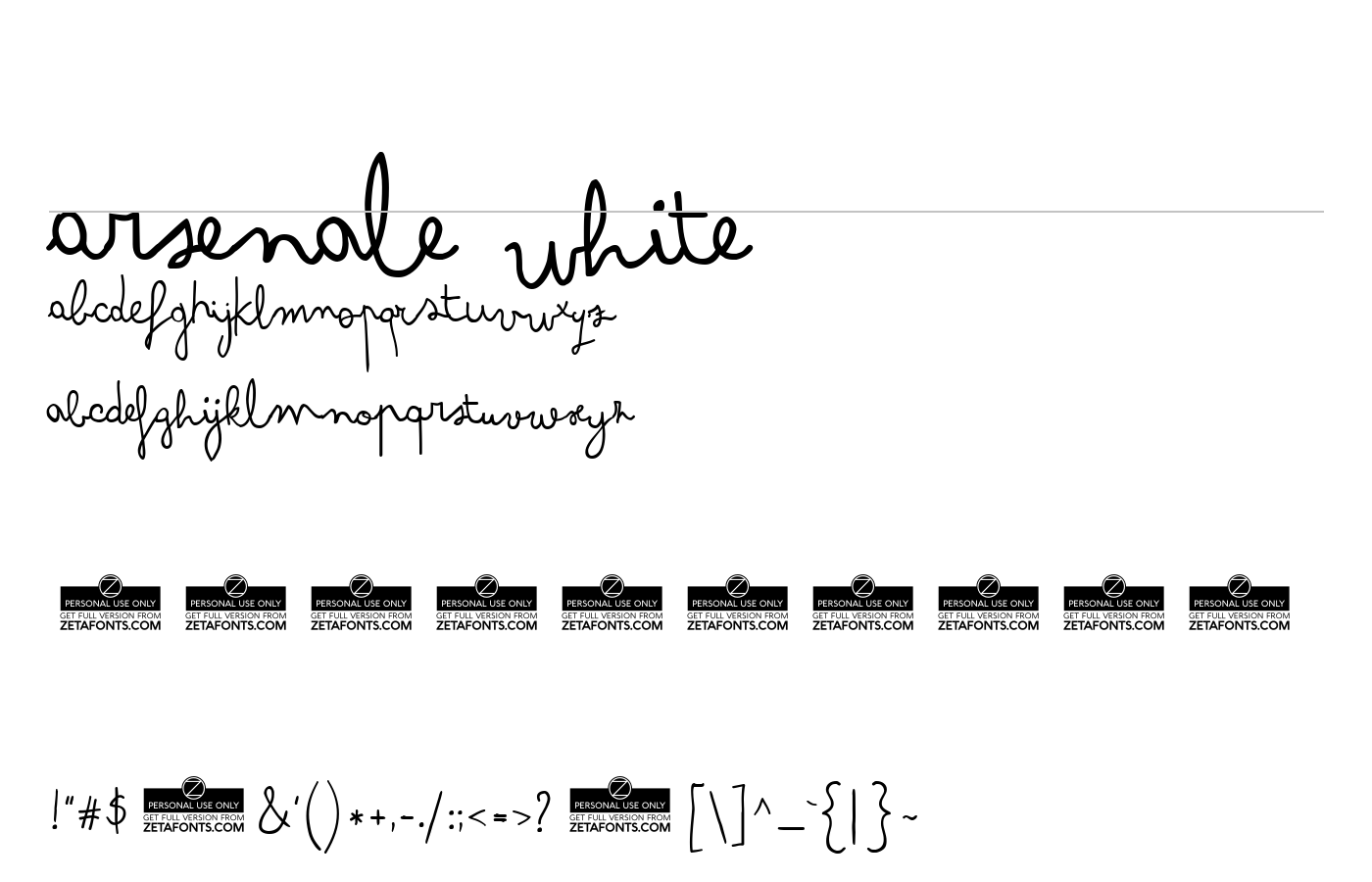
Arsenale White is a delicate, handwritten script font with a light, airy feel created by its thin, whimsical strokes and tall, narrow letterforms. Its playful and casual style, marked by smooth curves and single-story characters, makes it ideal for projects seeking a personal, friendly touch such as invitations, greeting cards, and creative branding. This font works best in creative and informal settings where an approachable and charming personality is desired.
Arsenale White Font
About Arsenale White Font
| Designer | francesco canovaro, jonathan calugi, studio kmzero |